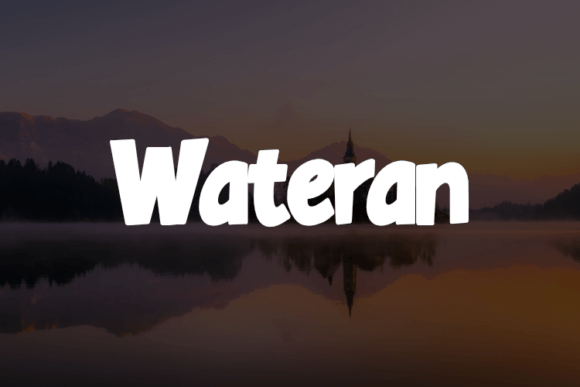
Discover the Dynamic World of Design with Wateran Font
In the realm of design, particularly in fashion-forward creations, the right typography can make all the difference. A font that not only speaks to the aesthetic of your project but also elevates it with its unique flair is a gem. This is where Wateran Font comes into play, a versatile typeface designed to bring a touch of elegance and dynamism to any design project. Whether you’re working on artistic clothing, t-shirt designs, or any other creative endeavor, Wateran is poised to become your go-to choice.
Key Features of Wateran Font
- Versatility: Wateran is crafted to be versatile, making it suitable for a wide range of design projects, from fashion and clothing to digital media and advertising.
- Fashion-Forward: Its design is specifically tailored to meet the demands of fashion-forward creations, ensuring your projects stand out with a contemporary look.
Ideal Applications for Wateran Font
Wateran’s unique design and versatile nature make it an ideal choice for various design applications, particularly:
- Artistic Clothing: Elevate your clothing designs with a font that adds a touch of sophistication and trendiness.
- T-Shirt Design: Perfect for creating eye-catching and stylish t-shirt designs that demand attention.
- Digital Media: Use Wateran to add a professional and contemporary look to your digital media projects, including brochures, posters, and advertisements.
The Benefits of Using Wateran Font
Choosing Wateran for your design projects comes with numerous benefits, including:
- Enhanced Aesthetic: Wateran’s unique flair can significantly enhance the aesthetic of your projects, making them more appealing to your audience.
- Professionalism: The font’s contemporary design lends a level of professionalism to your projects, helping you to build a strong brand image.
Tips for Using Wateran Font Effectively
To maximize the potential of Wateran, consider the following tips:
- Pairing: Experiment with pairing Wateran with other fonts to create a unique and harmonious design.
- Size and Weight: Play with different sizes and weights of Wateran to add depth and emphasis to your design.
- Color: Choose colors that complement the style and theme of your project, and don’t be afraid to experiment with different color schemes.
Wateran Font is a dynamic and versatile typeface designed to bring a touch of elegance and trendiness to your design projects. Its compatibility with all major design software, coupled with the convenience of OTF and TTF files, makes it an ideal choice for both professionals and beginners. Whether you’re working on artistic clothing, t-shirt designs, or any other creative project, Wateran is poised to elevate your designs to new heights. By incorporating Wateran into your design toolkit, you’re not just choosing a font; you’re embracing a design philosophy that prioritizes creativity, flexibility, and aesthetic appeal.